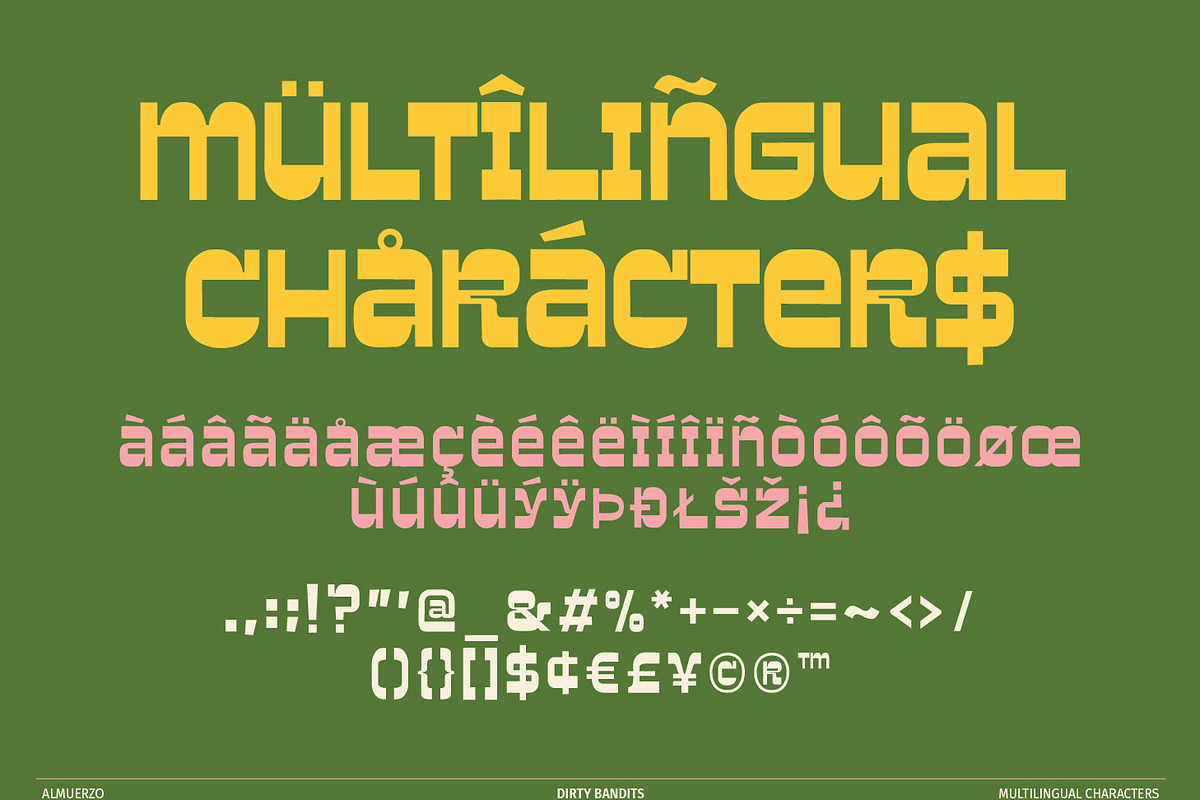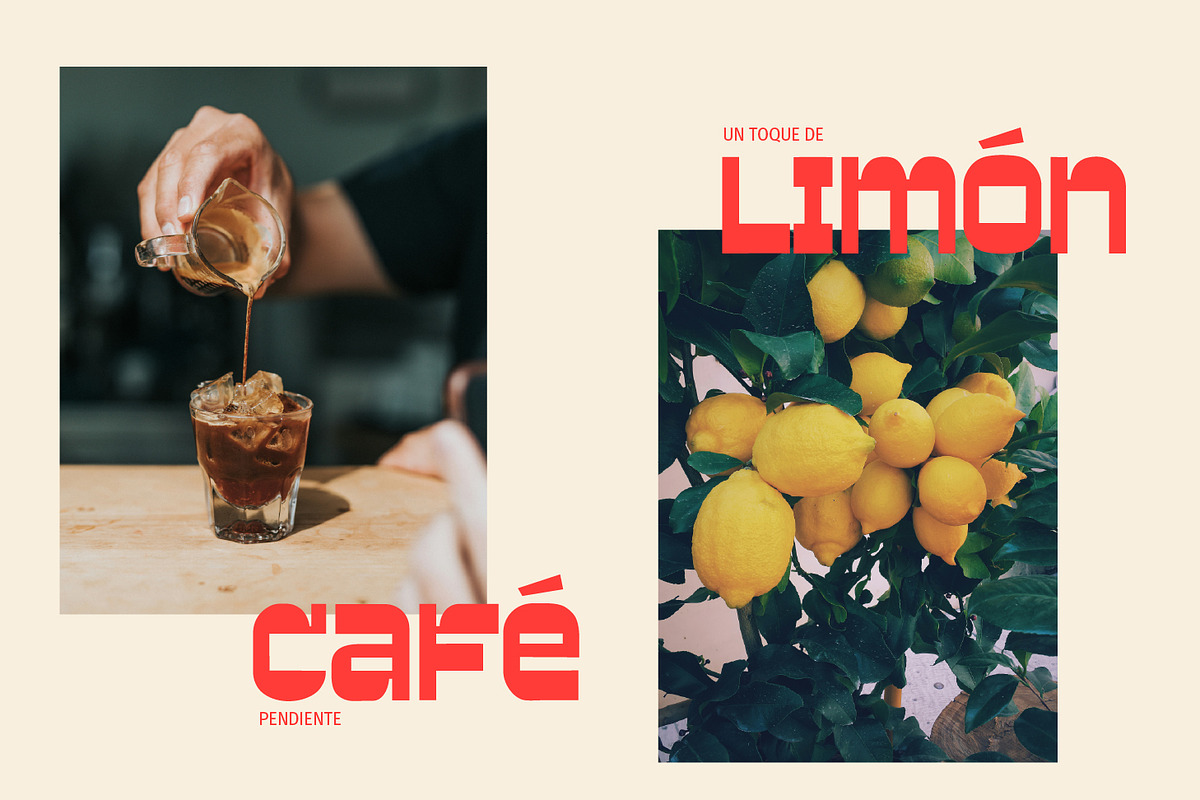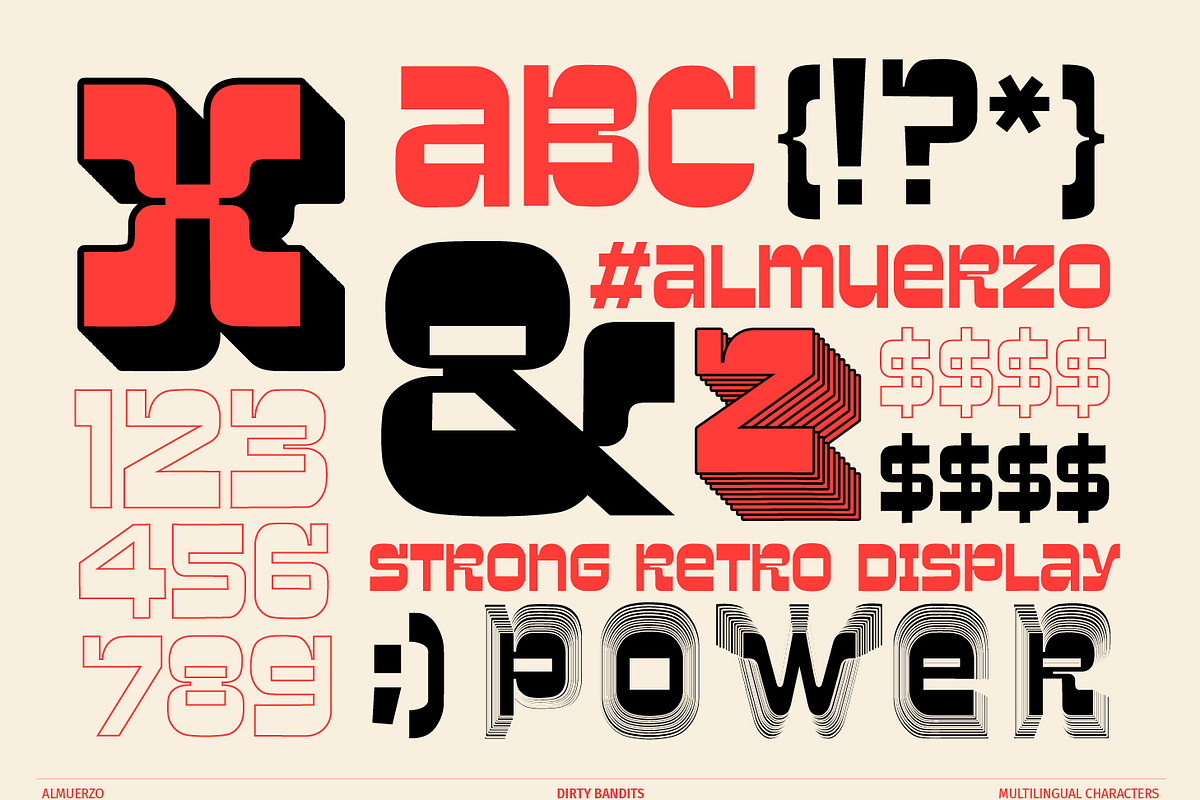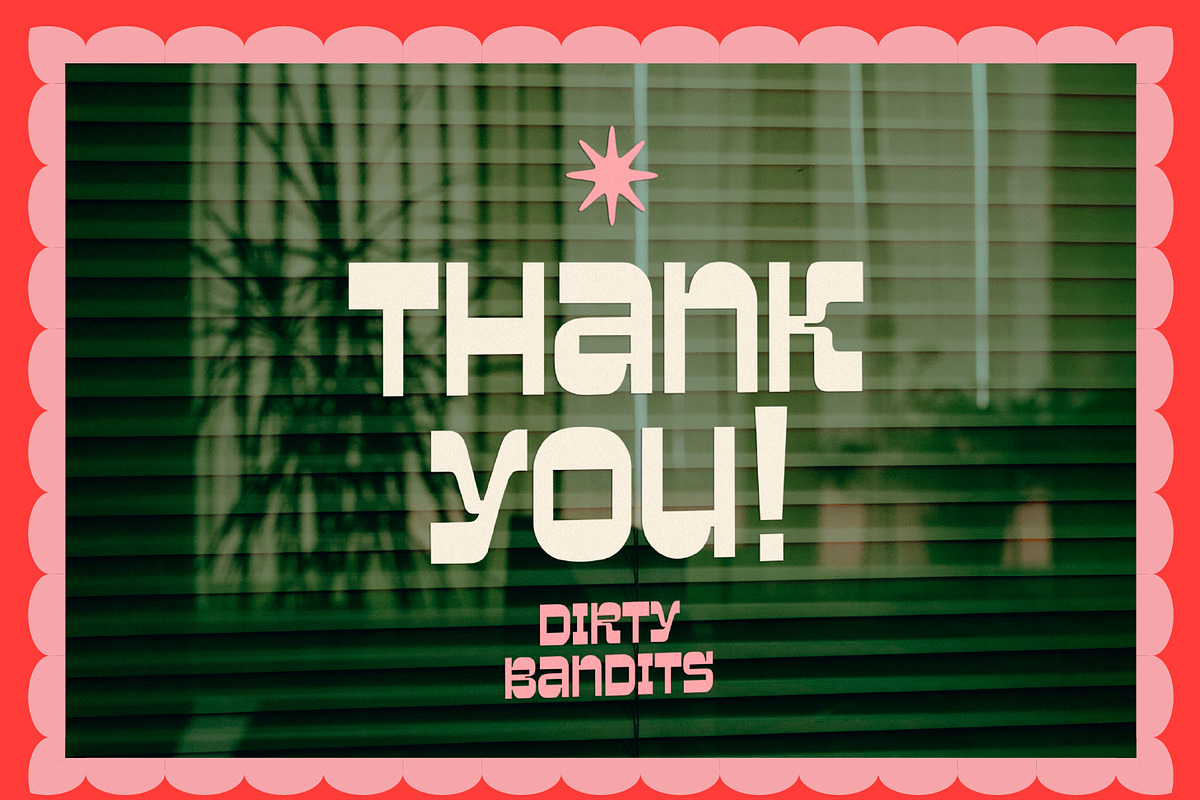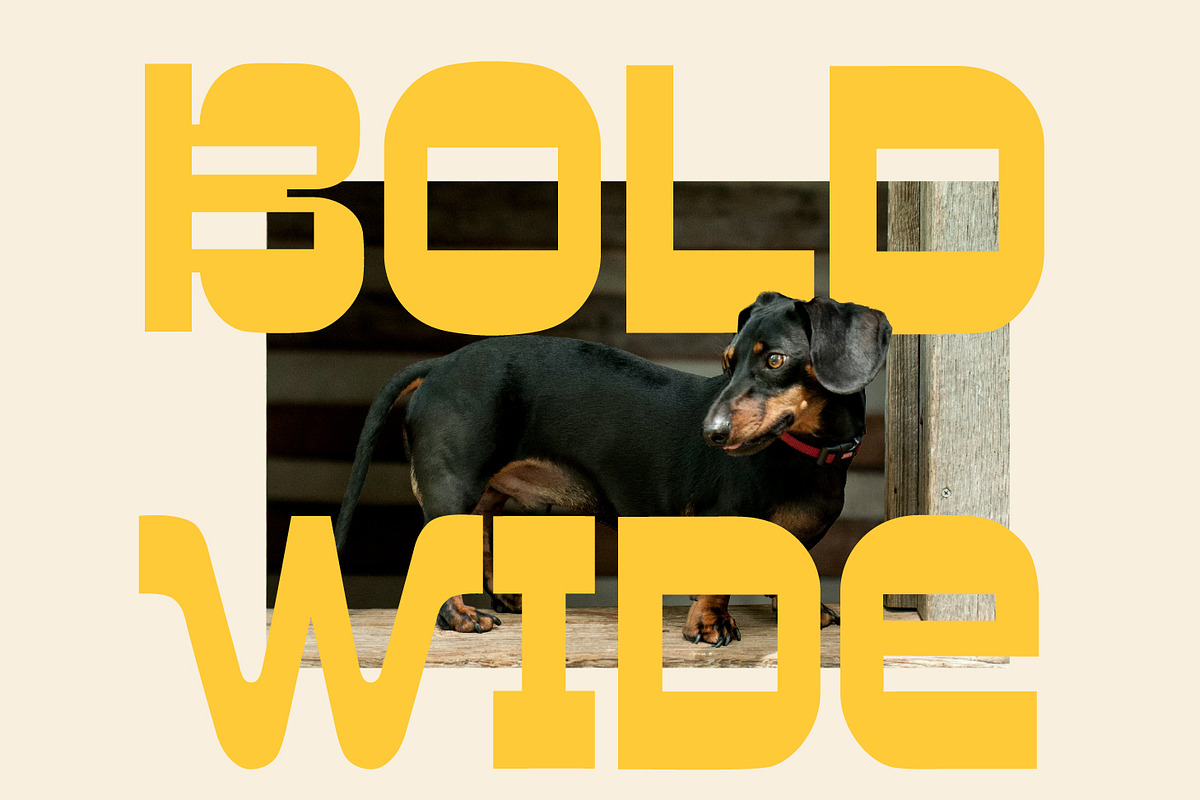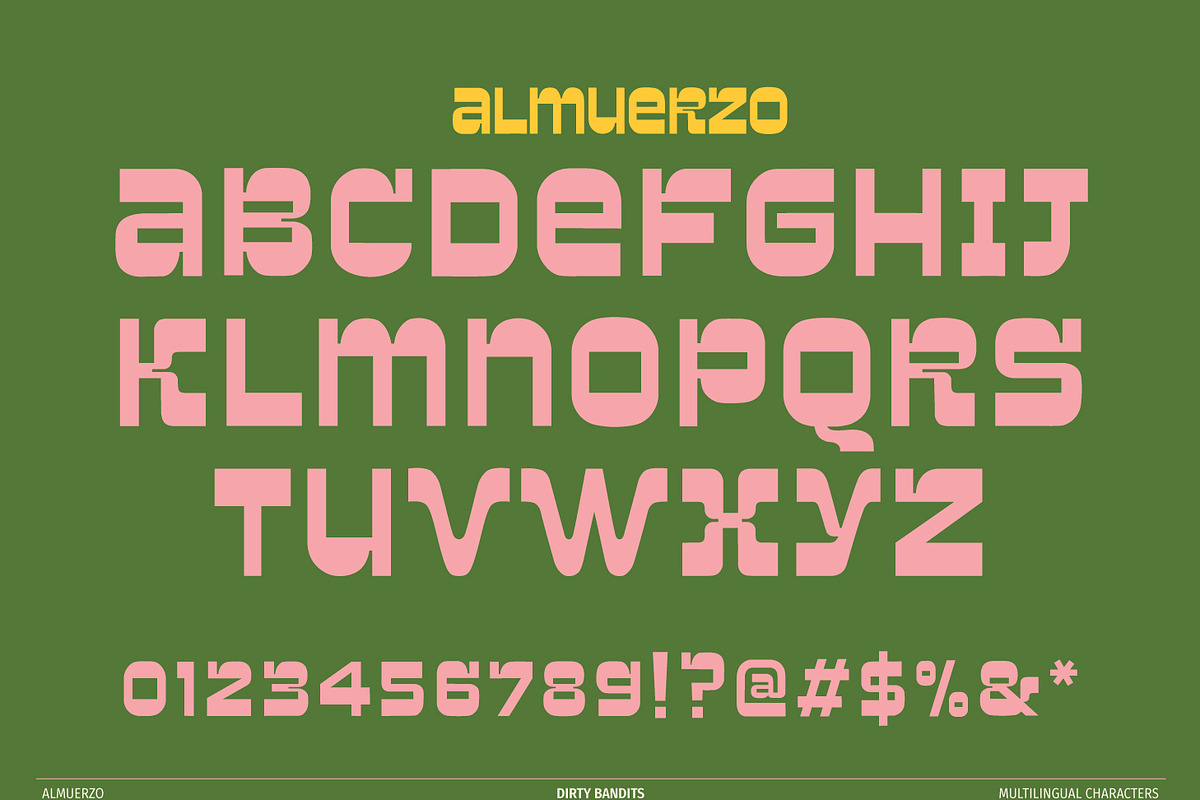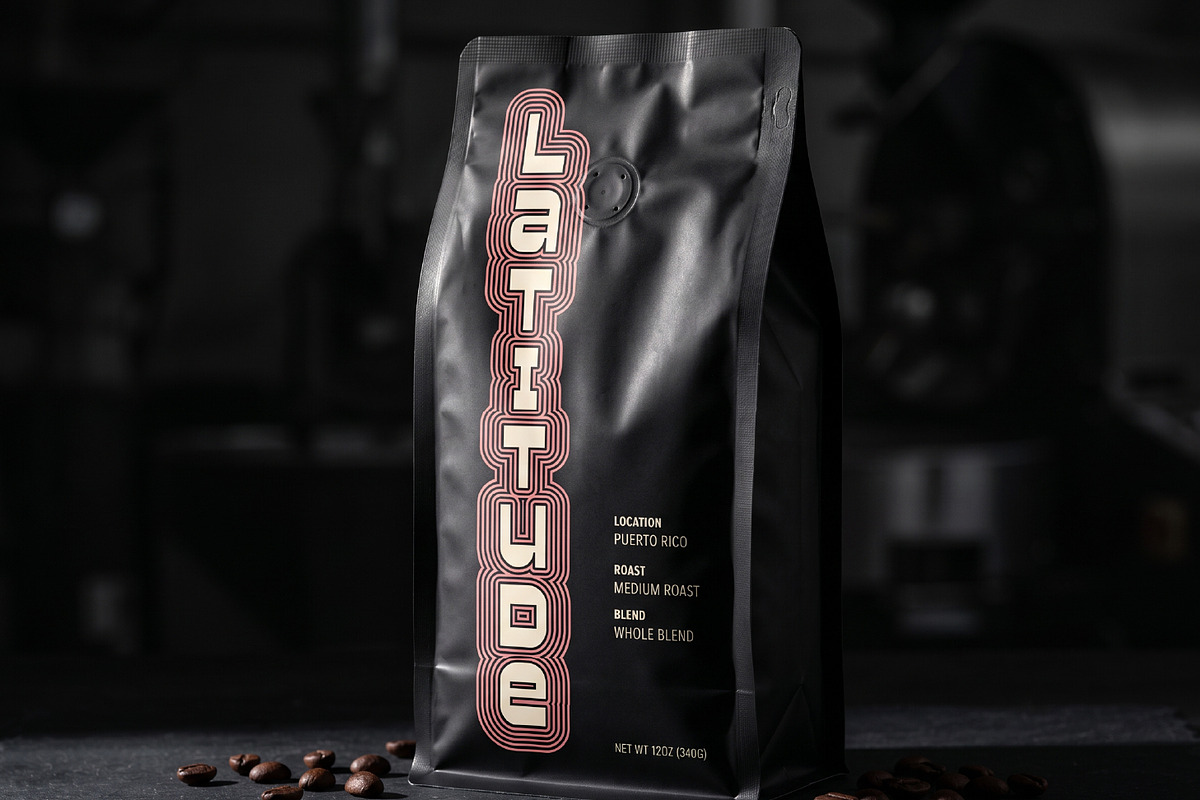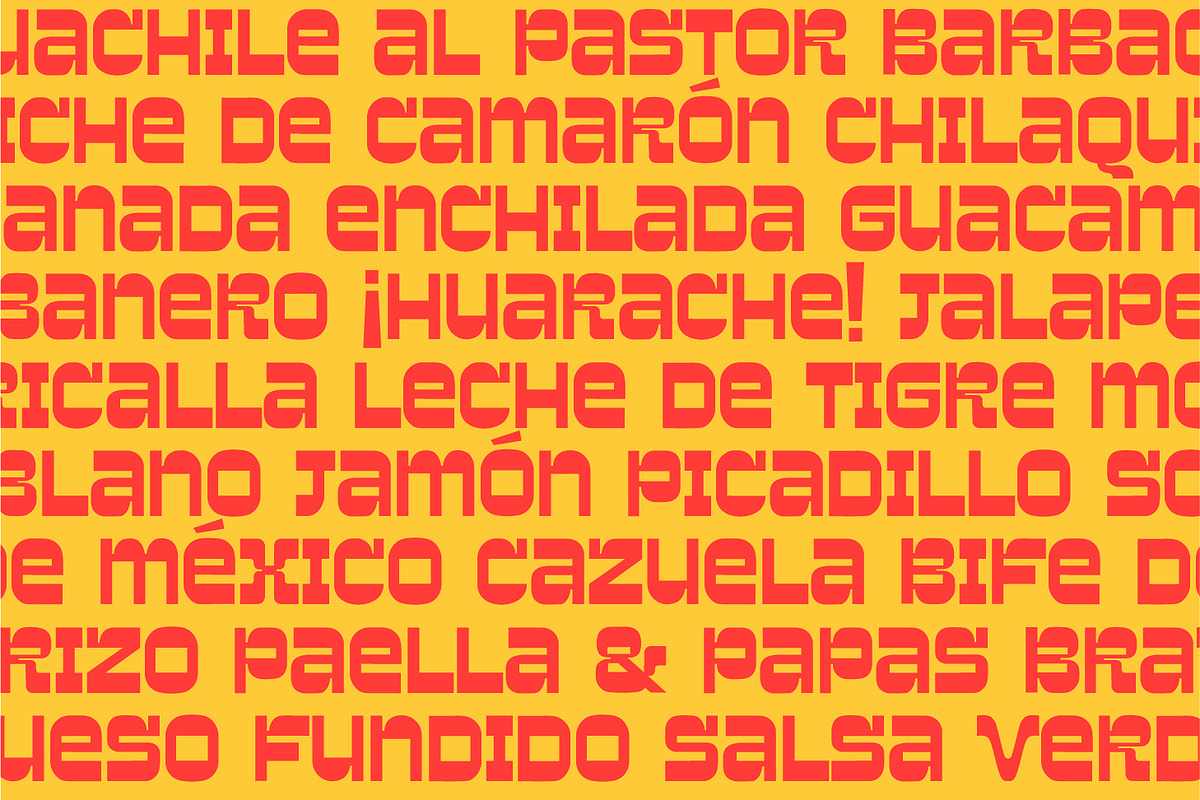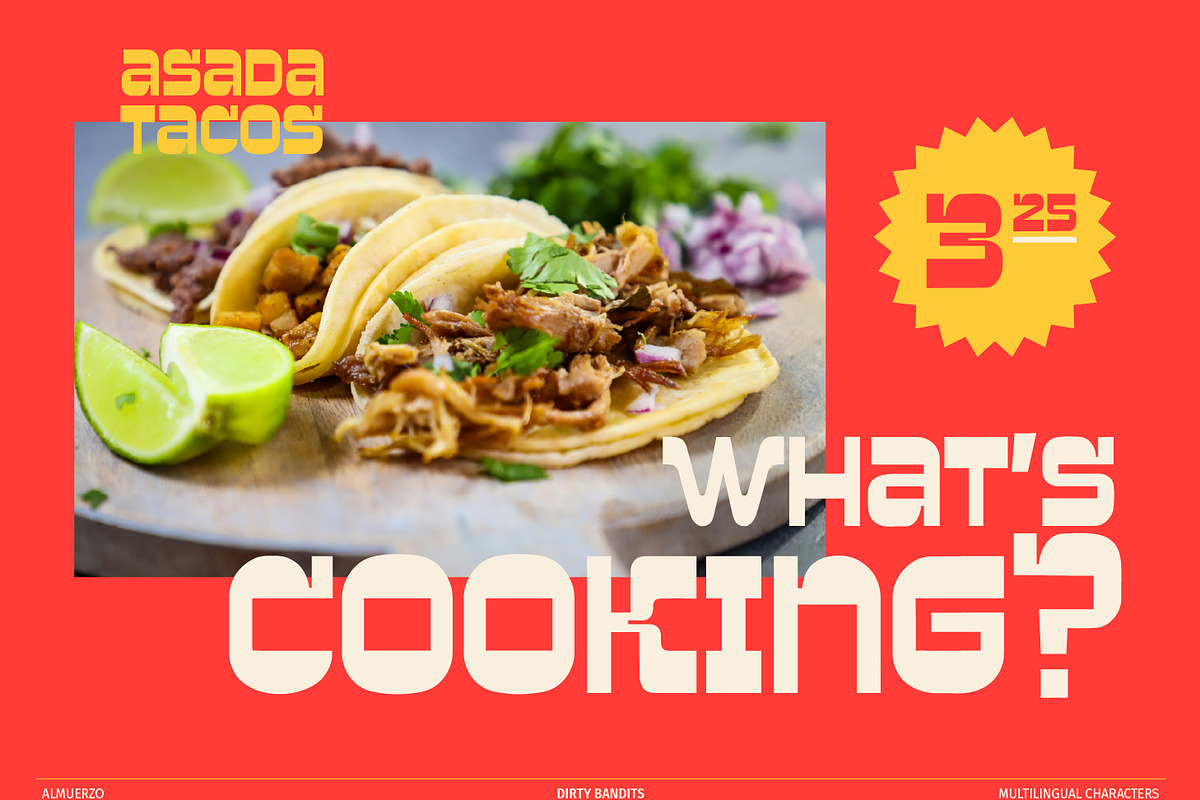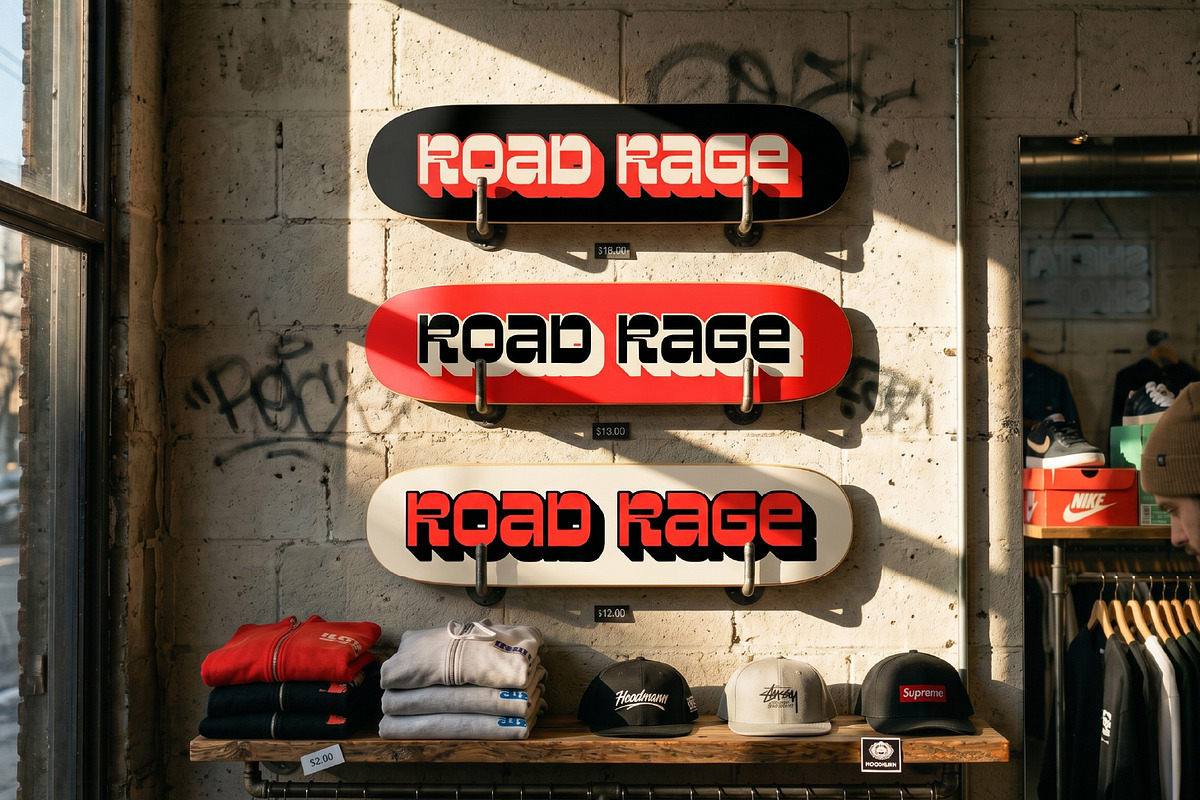
Almuerzo
An Unapologetically Strong Retro Display Font
A robust, retro-modern display font. Perfect for heavy-duty packaging, bold visual identities, and large-scale mural design.
Almuerzo is a high-impact display font that merges clean, geometric architecture with the gritty, unyielding soul of classic sign painting. Featuring heavy horizontal strokes and an over-weighted rhythm, it is engineered to dominate high-contrast environments and demand immediate attention. It’s funky, it’s industrial, and it bridges the gap between mid-century Americana nostalgia and contemporary design—which is exactly why it stands out.
Reverse-Stress Geometry: Built with a unique weight distribution that shifts emphasis to the horizontal lines, creating a striking visual rhythm.
Large-Scale Weight: Features a massive, dense silhouette tailored specifically for primary headers, packaging titles, and environmental graphics that require maximum presence.
Retro-Modern Soul: Effortlessly combines nostalgic, hand-crafted character forms with clean, stable geometry for a fresh take on vintage block lettering.